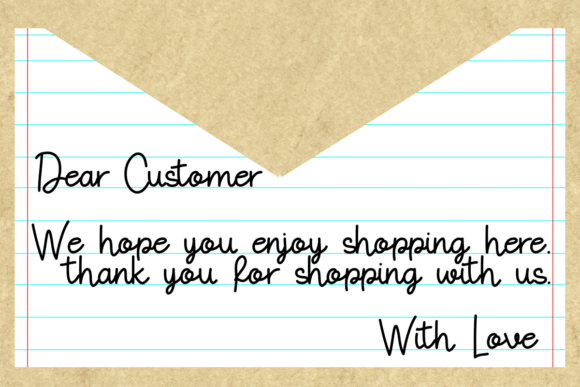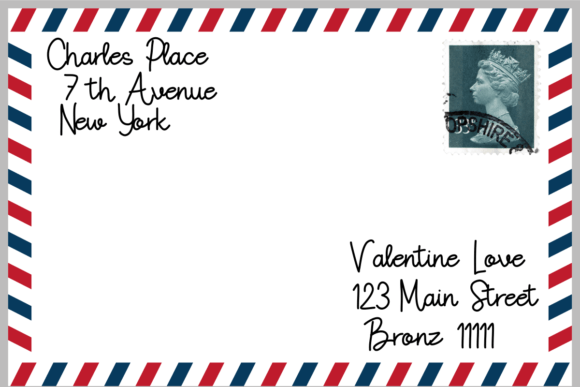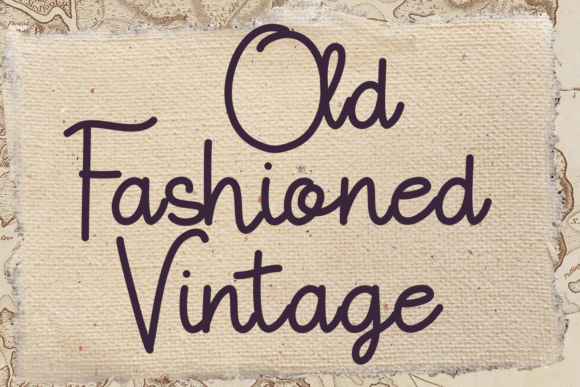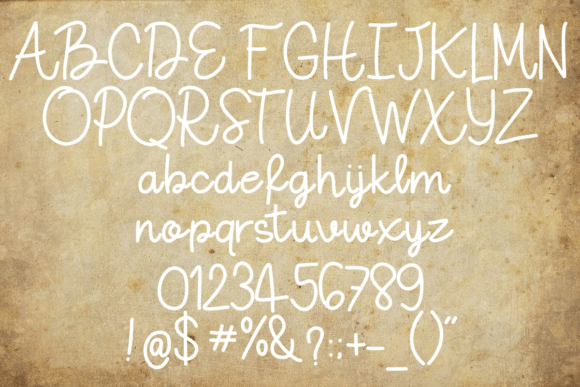
Letter Font
“Letter” is not just a font; it’s a lovely and elegant handwritten typeface crafted to bring a touch of vintage charm and nostalgia to your creative projects. Its graceful and timeless characters make it the perfect choice for a variety of applications, whether you’re working on vintage-themed designs, writing personal letters to a friend, or any project that calls for a personal and heartfelt touch.
The elegance of “Letter” is evident in its carefully crafted characters. Each letter is designed with a sense of refinement, creating a typeface that exudes a classic and timeless aesthetic. The handwritten style adds a personal and human touch to your text, enhancing the overall warmth of your designs.
The versatility of “Letter” makes it suitable for a range of projects. If you’re working on vintage-inspired designs, this font becomes a key element in capturing the essence of a bygone era. Its nostalgic undertones can transport your audience to a different time, adding a layer of sentimentality to your creations.
Writing personal letters or crafting messages for a friend? “Letter” becomes the ideal choice for conveying emotions with a touch of elegance. Its handwritten charm ensures that your words carry a genuine and personal feel, making it perfect for projects that require a heartfelt touch.
In summary, “Letter” is more than just a font; it’s a design element that brings lovely and elegant handwritten style to your projects. Embrace its timeless characters for vintage designs or use it to infuse a personal and nostalgic touch into your letters and messages. Let “Letter” be the font that adds a touch of warmth and elegance to your creative endeavors.